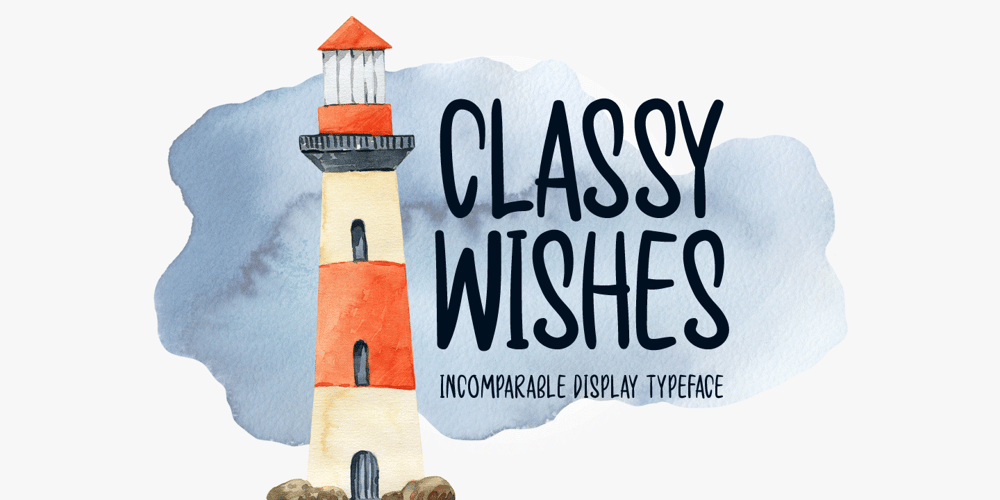
Classy Wishes
Classy Wishes font
Classy Wishes Font Family was designed by Md Shohail Bhuian and published by Seemly Fonts. Classy Wishes contains 1 styles and family package options. Classy Wishes is a display font. Classy Wishes is perfectly suited for stationery, logos, t-shirt, paper, print design, website headers, photo frames, flyers, music covers, posters, image sliders, and much more.